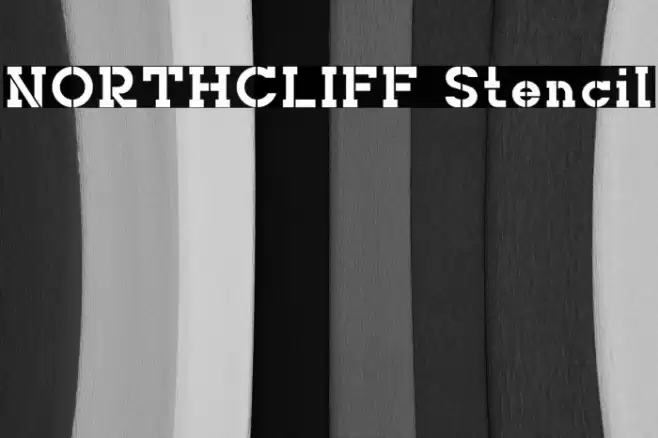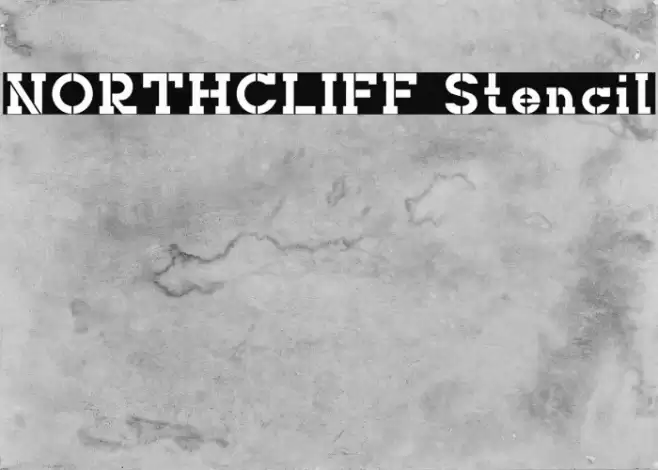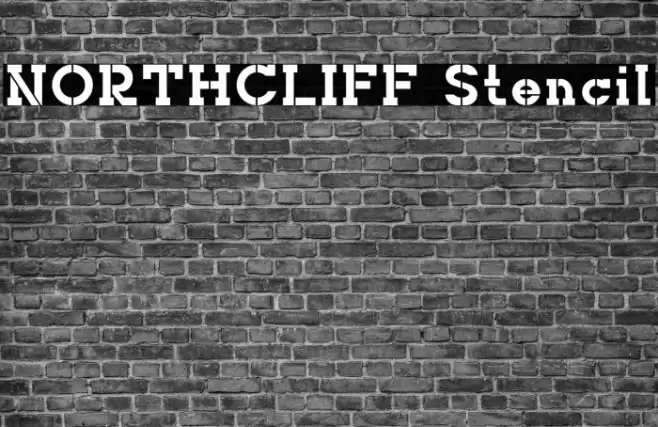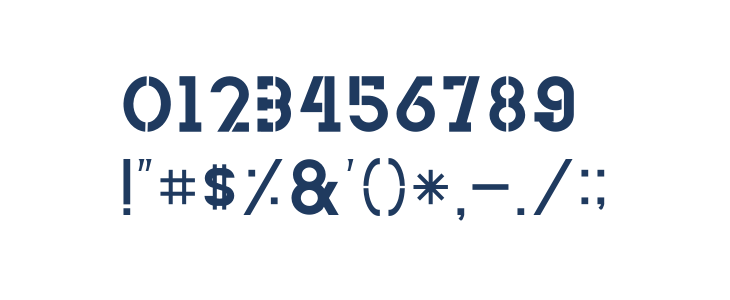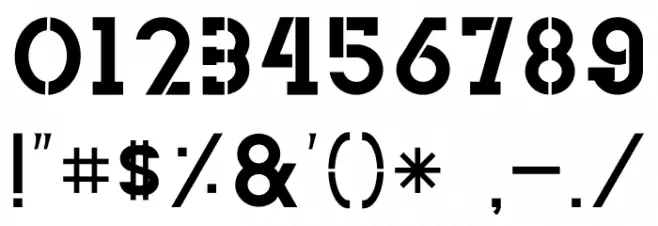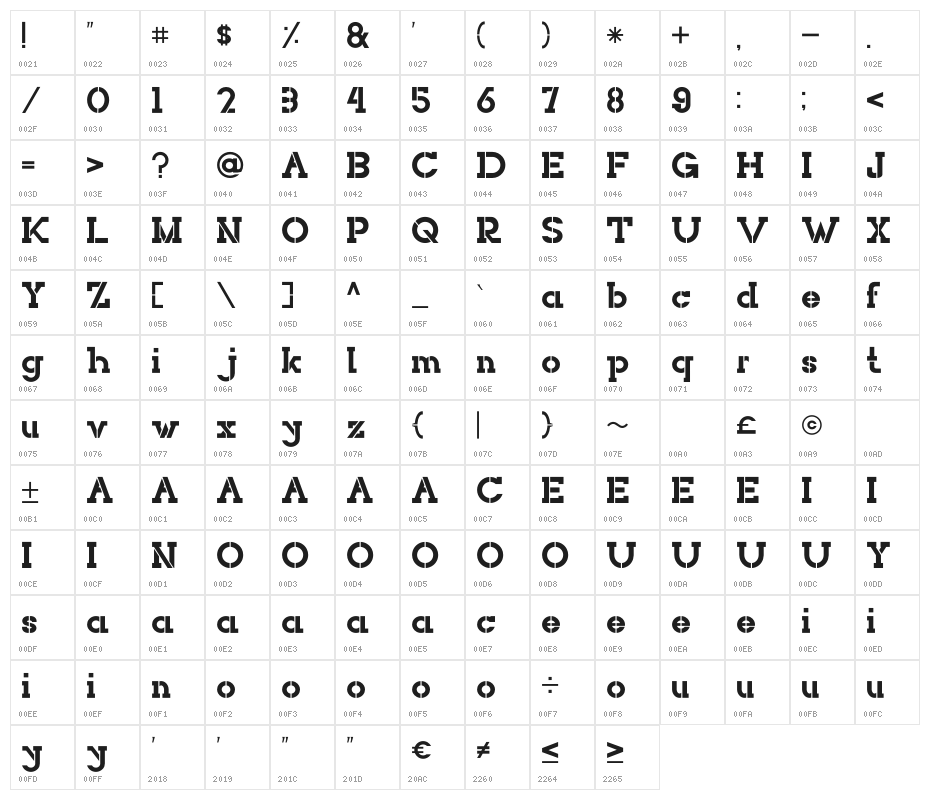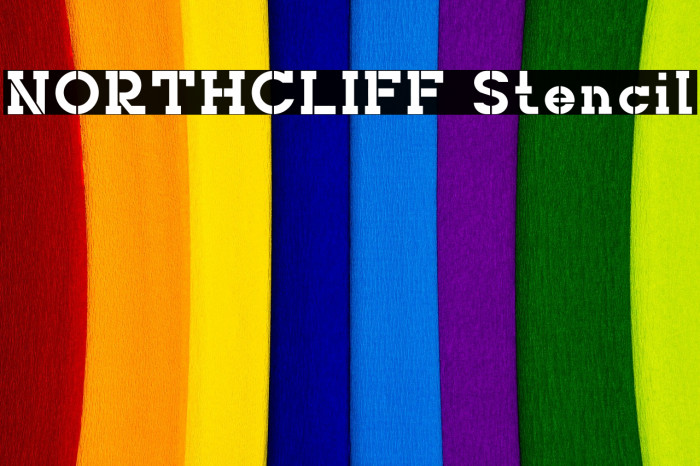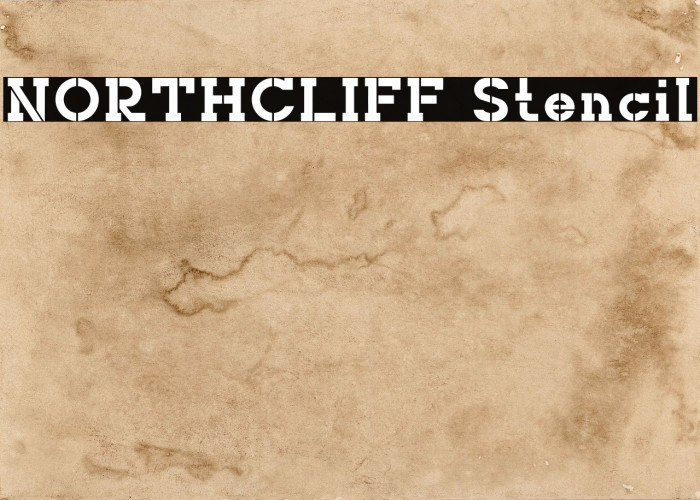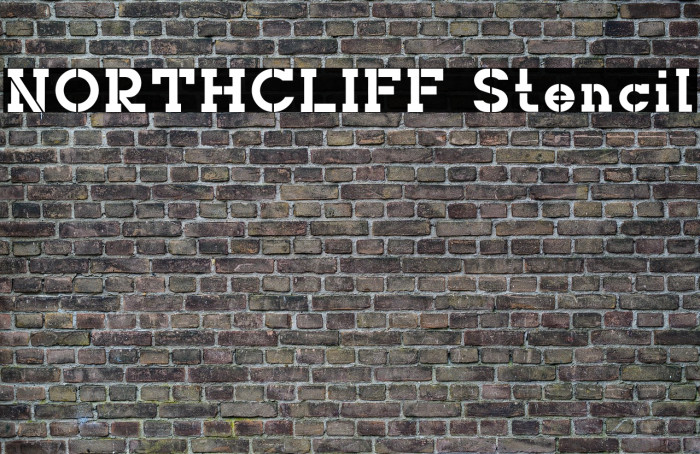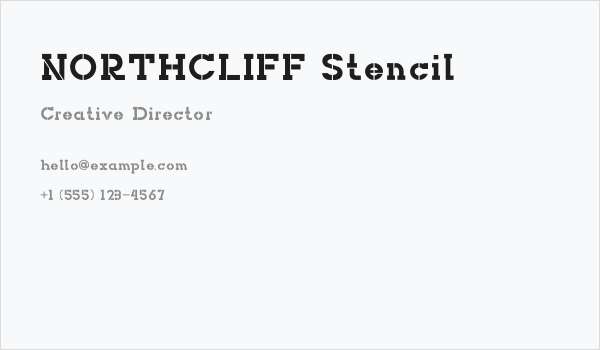
NORTHCLIFF Stencil Font
NORTHCLIFF Stencil Description
This font features a bold, stencil-like design with strong geometric shapes and clear cutouts that give it a distinctive industrial feel. The uppercase and lowercase letters maintain a consistent weight, providing a uniform appearance across all characters. The numbers and special characters follow the same stencil style, ensuring cohesion throughout the typeface. The font's boldness and unique cutouts make it stand out, while the geometric precision adds a modern touch. It's ideal for projects that require a robust and eye-catching typeface.
A bold, stencil-style font with geometric precision and industrial appeal from Uncategorized fonts.
- Proposed Projects: Ideal for branding, posters, signage, and any project needing a strong, industrial aesthetic.
- Use Case: Headlines, Logos, Signage